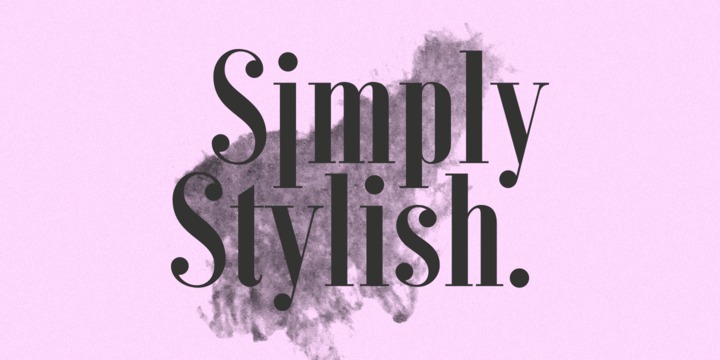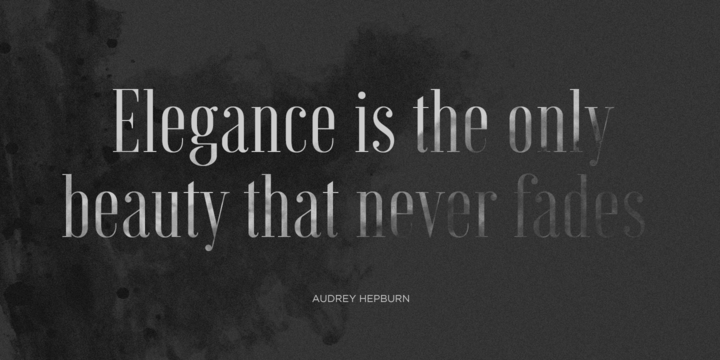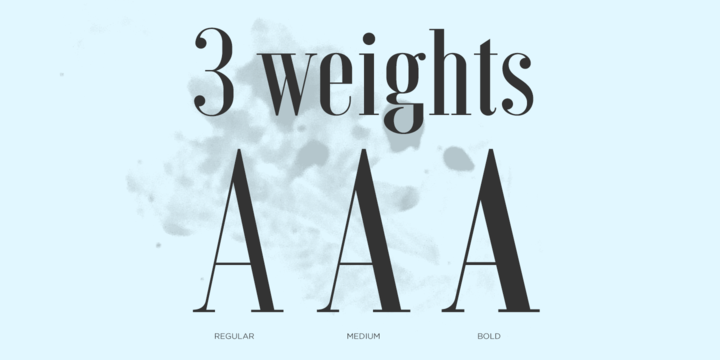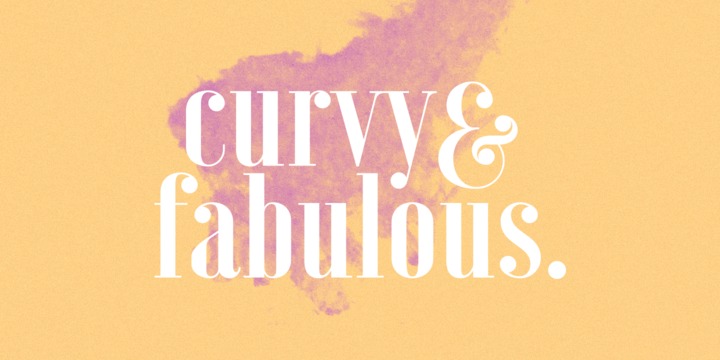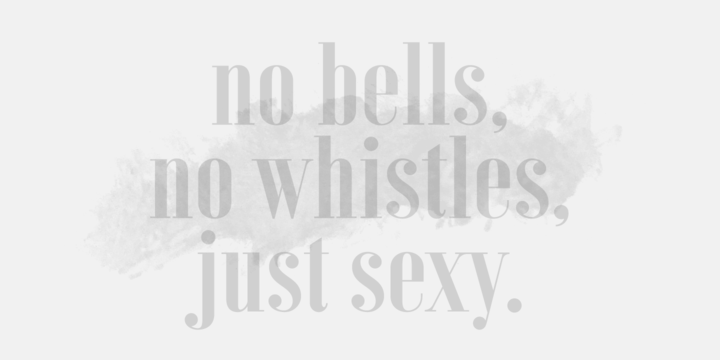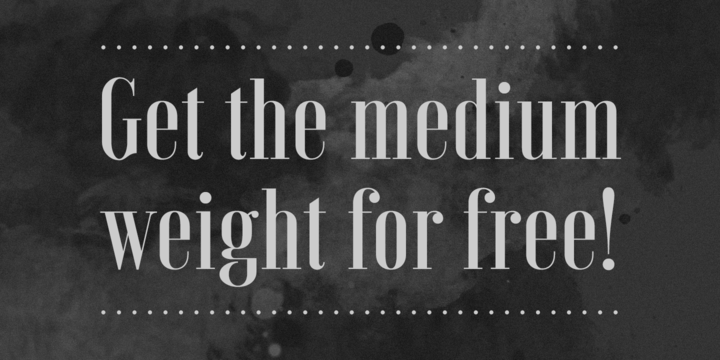
Voga font family
Voga is a condensed modern Didone typeface with three weights: Regular, medium and bold. My aim was to create a very elegant and
Voga Regular
Voga Medium
Voga Bold